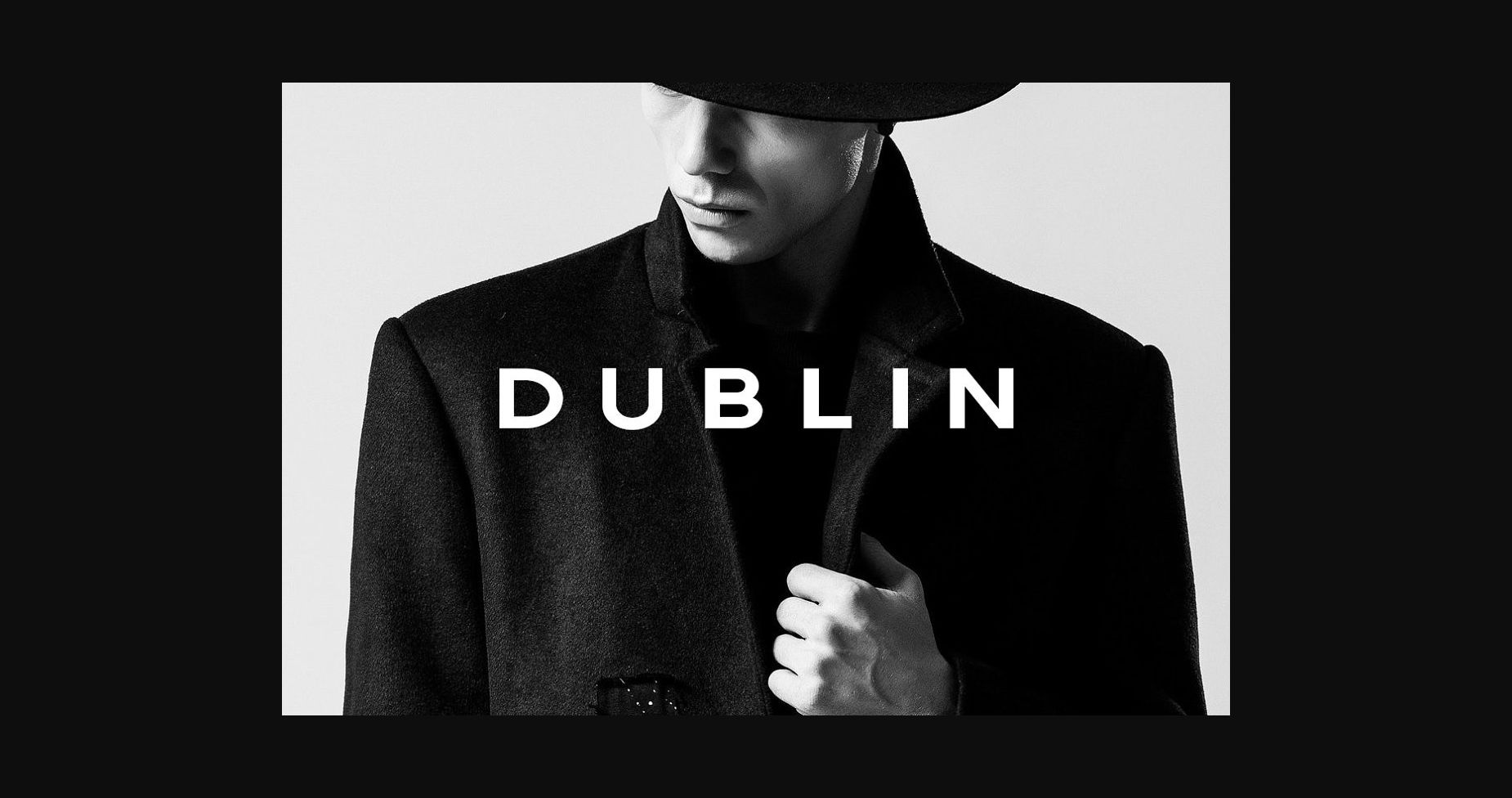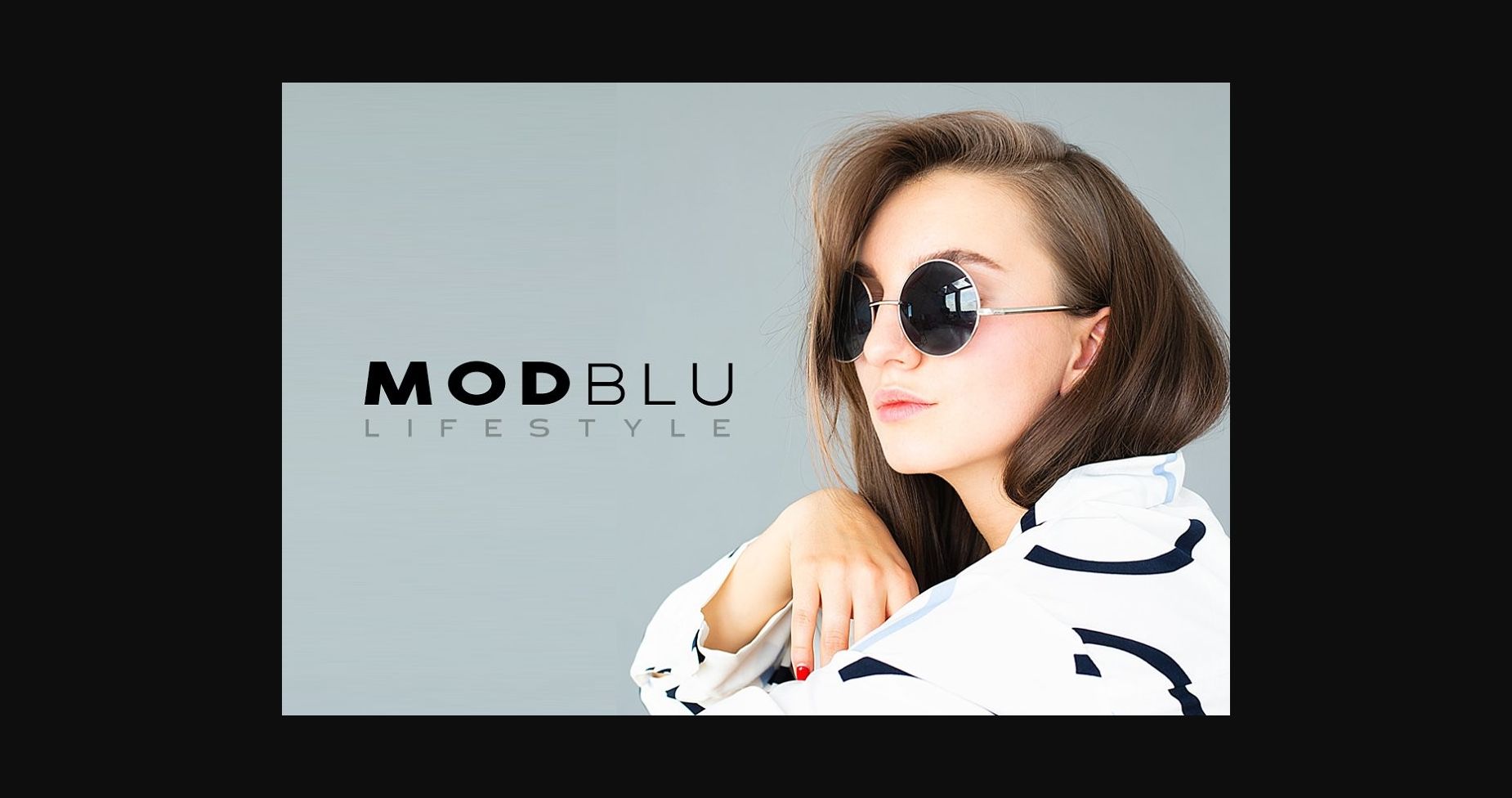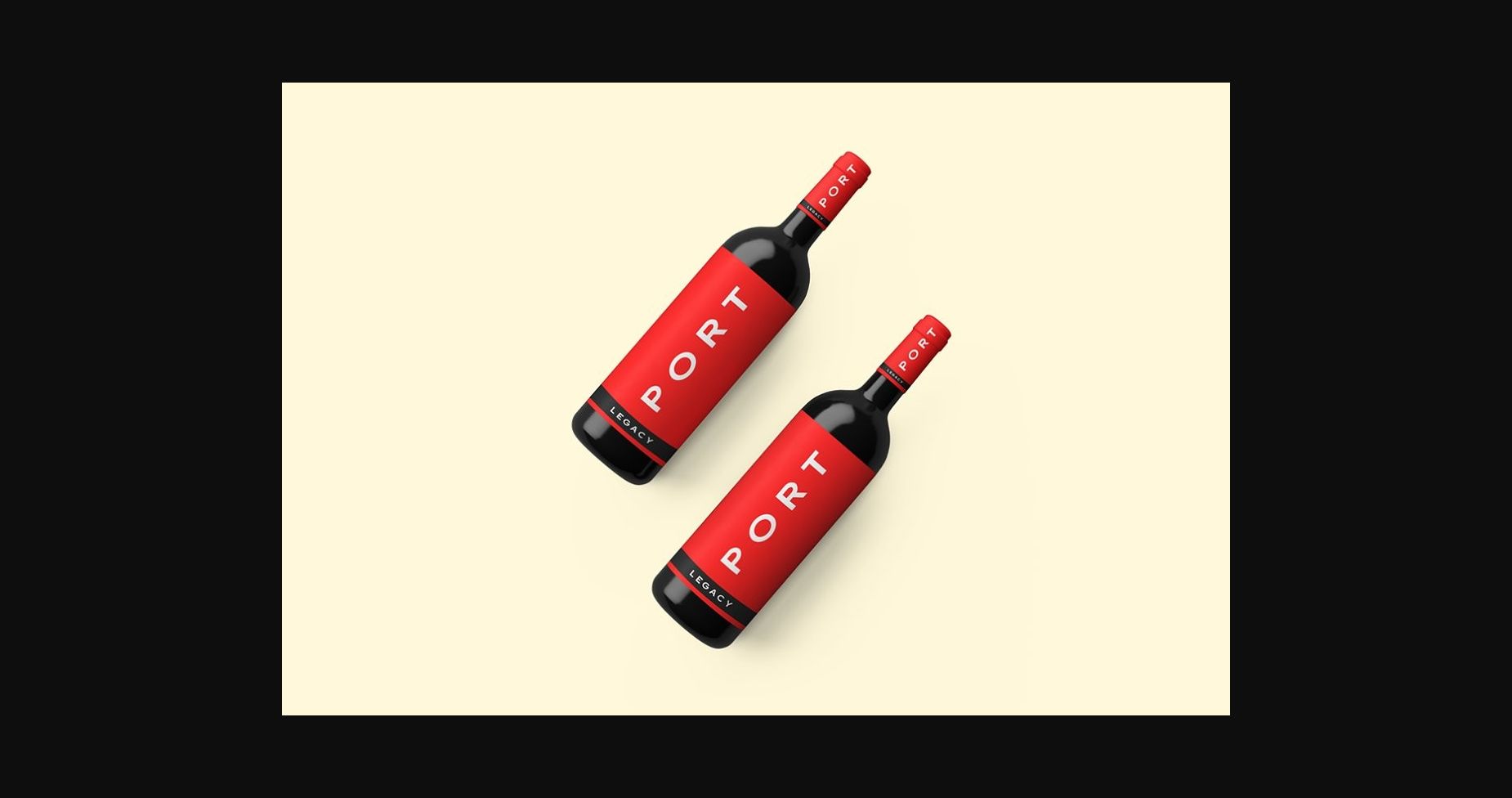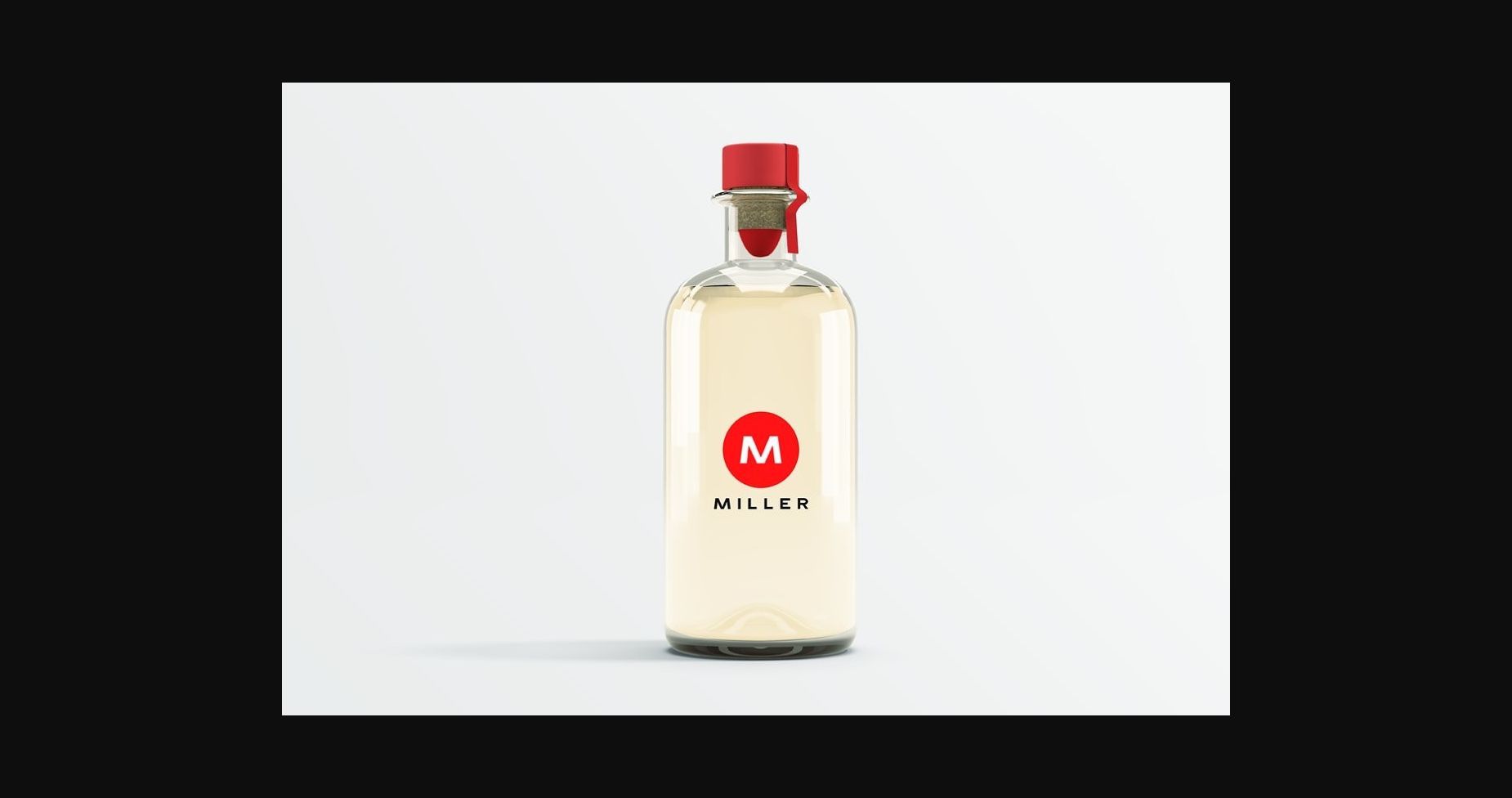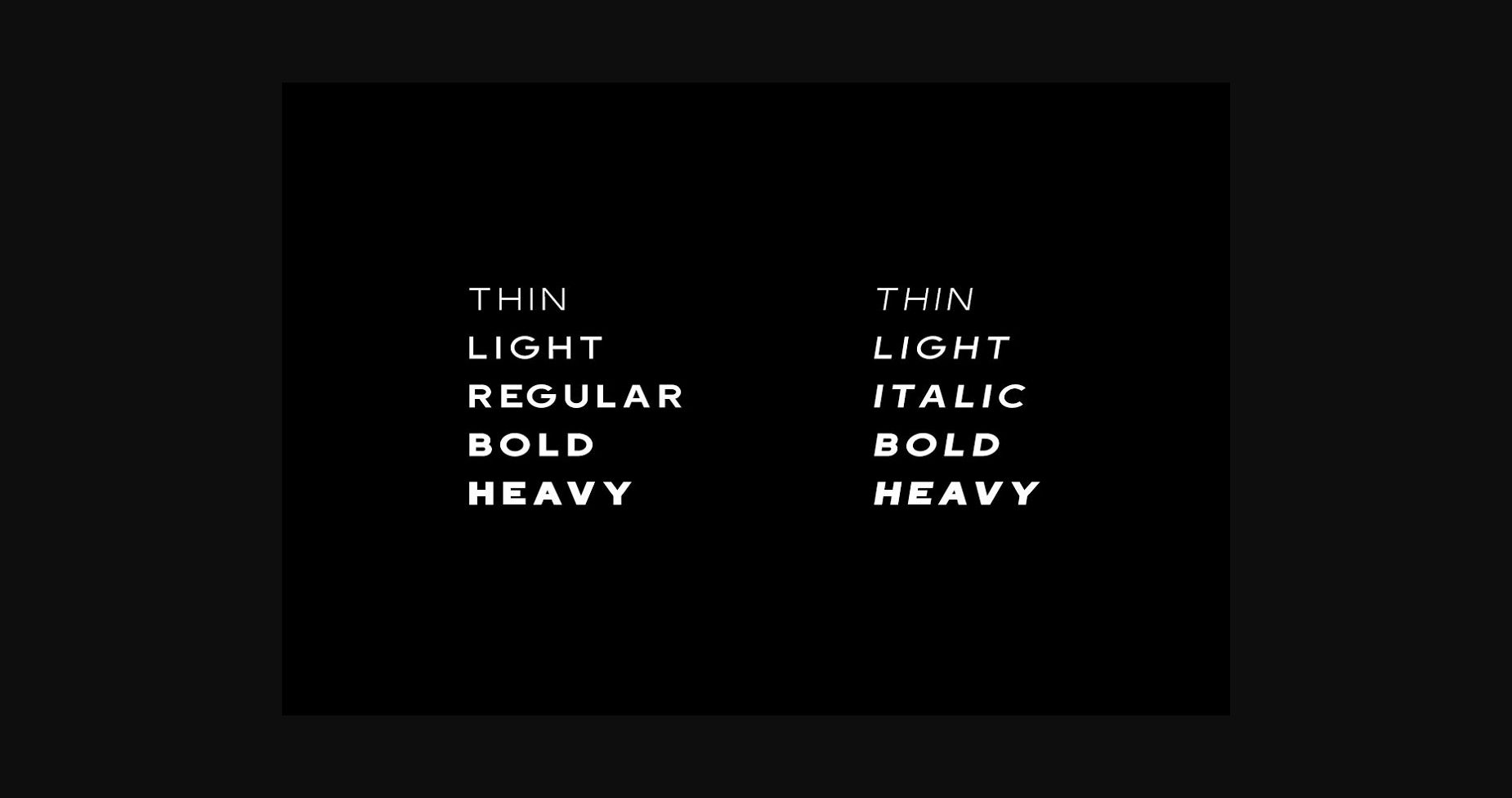
Dublin is a minimal and modern sans serif font. It will help you create outstanding logos, unique marketing graphics, branding materials, banners, and it will grab the attention of all your visitors!